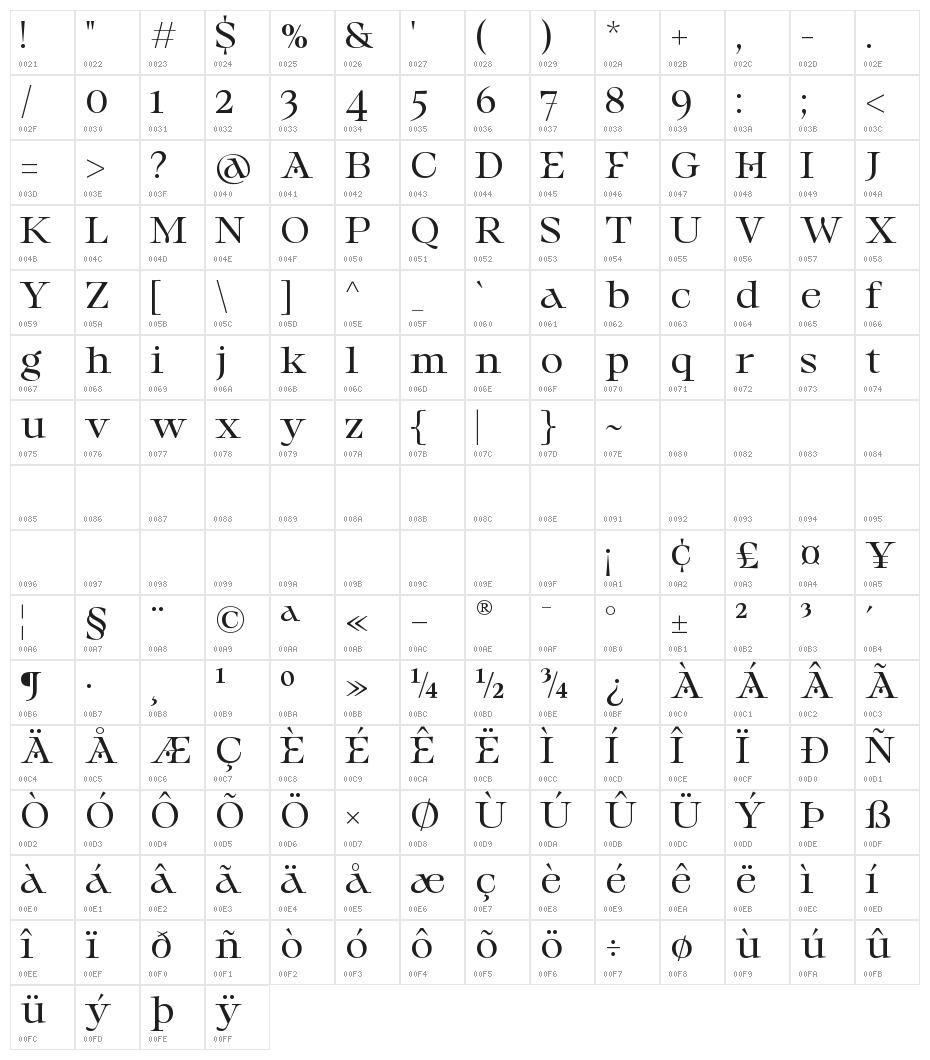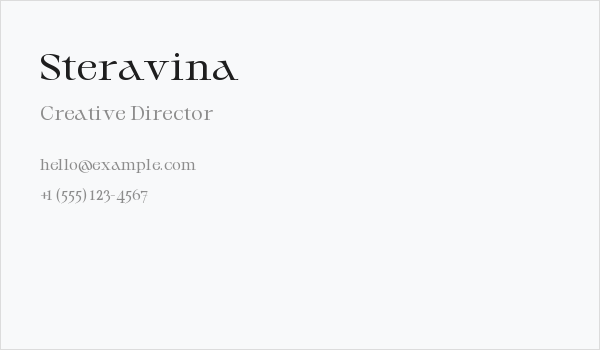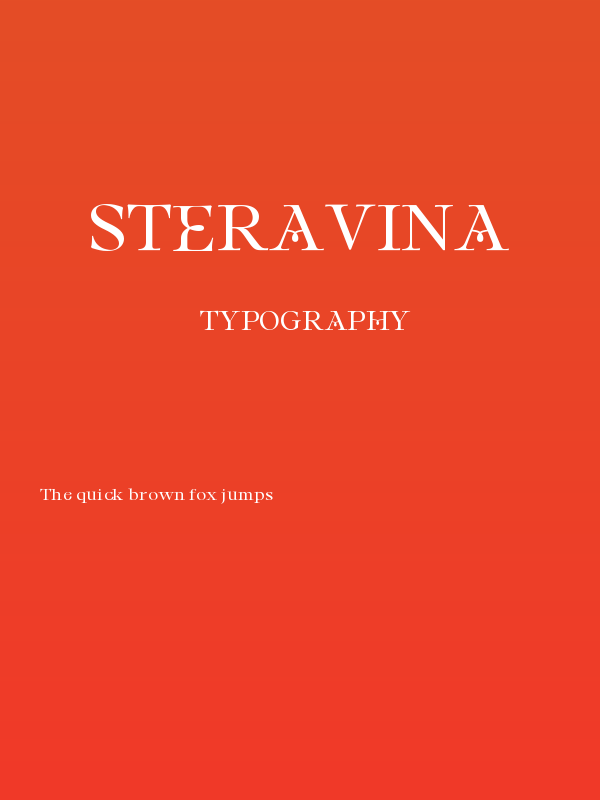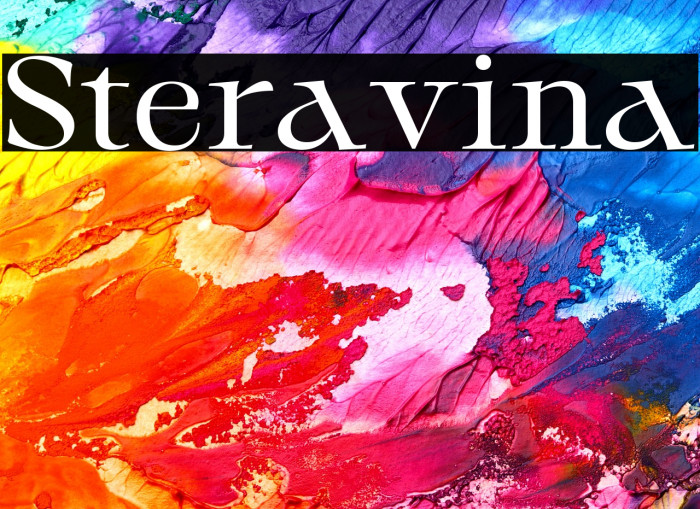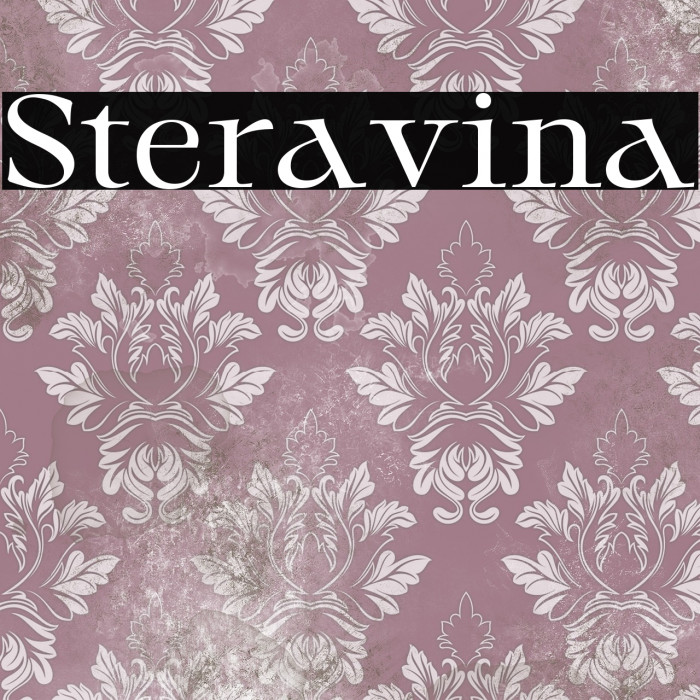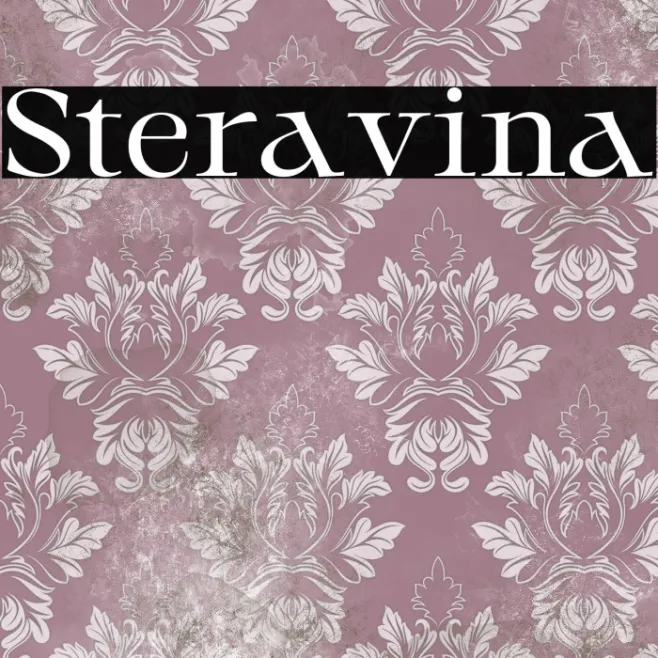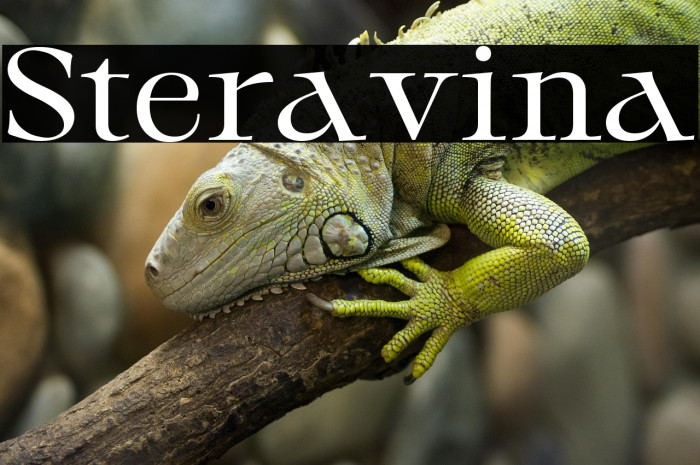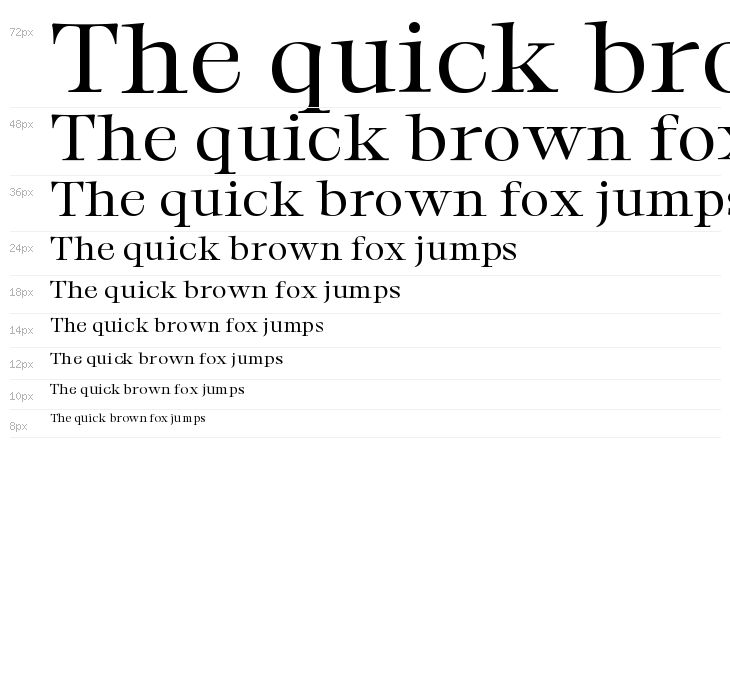
Steravina Font
Steravina Description
This font exhibits a classic serif style with elegant and refined strokes. The serifs are pronounced, adding a touch of sophistication and tradition. The uppercase letters are bold and commanding, while the lowercase letters maintain a balanced and harmonious appearance. The numerals are clear and distinct, making them suitable for various applications. The special characters are well-integrated, ensuring consistency across the font. Overall, this font combines traditional serif elements with a modern twist, making it versatile for both formal and contemporary designs.
| Proposed Projects | Ideal for editorial design, book covers, formal invitations, and branding projects that require a touch of elegance and tradition. |